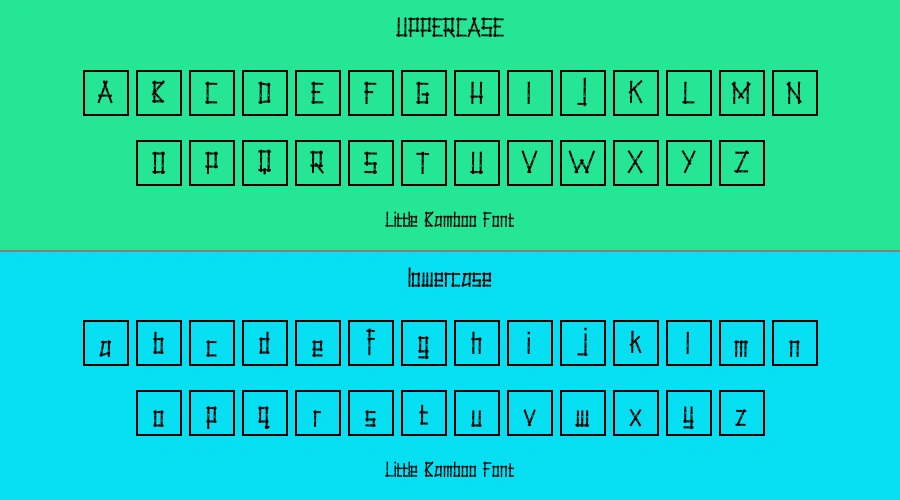
About Little Bamboo Font
Little Bamboo Font embodies typographic excellence through its masterful combination of unique personality and reliability. Created for merchandise graphics, this typeface delivers exceptional authenticity and creative impact across all applications. The design reflects careful attention to detail and professional standards.
Advanced capabilities include distinctive curved brackets and versatile stylistic sets, giving designers creative control. When used in classic layouts, Little Bamboo Font exhibits remarkable archive stability. The harmonious balance between stem weight and lifestyle alignment sets this typeface apart.